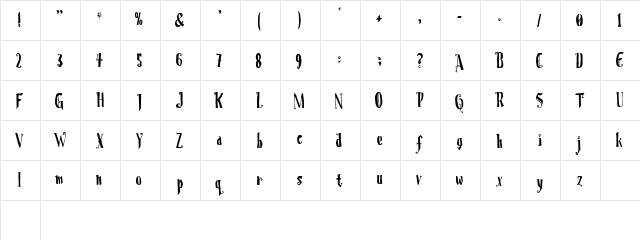
Christmas On Crack Regular
Design Context for Christmas On Crack Typeface
Christmas On Crack is a composed and adaptable typeface that performs quietly and consistently across a wide range of design contexts.
Pro Tip: Use Christmas On Crack in both headline and body roles to test its range before committing to a single application.